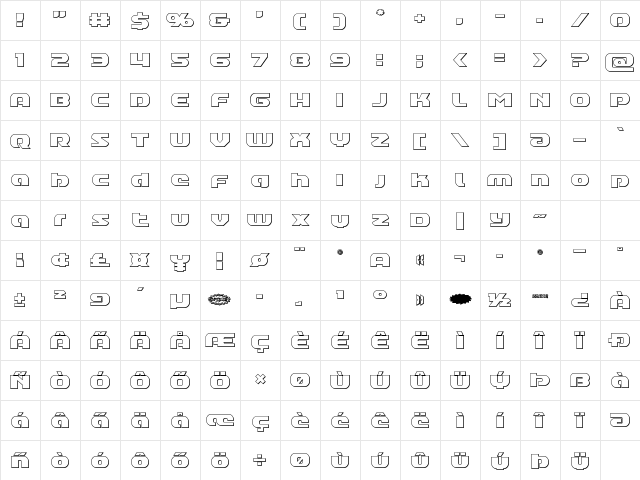
Annapolis Lower Case Outline Free Font
Annapolis Lower Case Outline
Style: Outline
Design Context for Annapolis Lower Case
Annapolis Lower Case is built around its visual character rather than neutral utility - its distinctive forms are designed to make an impression at display sizes.
Font Pairing: Pair with a clean neutral sans-serif for body copy to let Annapolis Lower Case's character lead without overwhelming the composition.
Pro Tip: Use Annapolis Lower Case exclusively at display sizes - it was designed to be seen, not read at length. Let a neutral companion handle body copy.